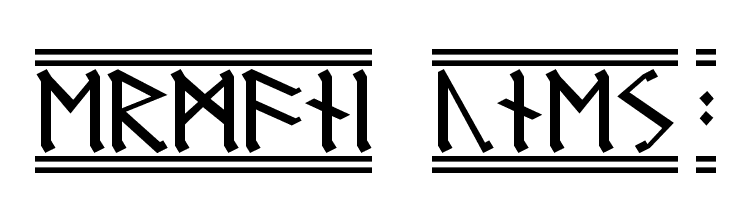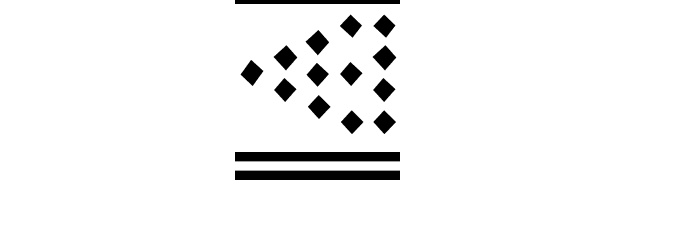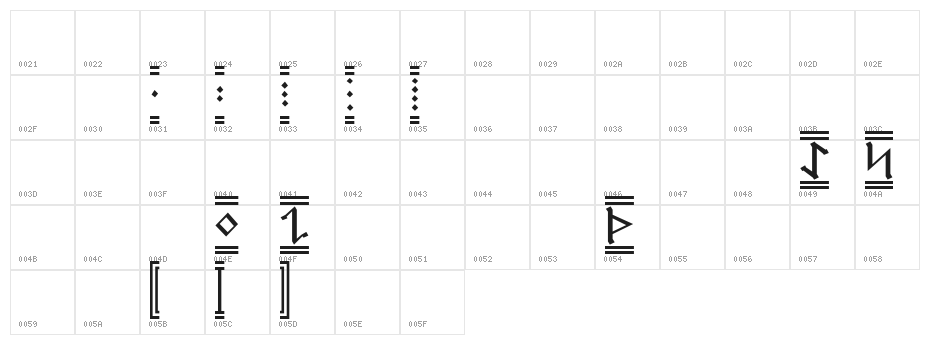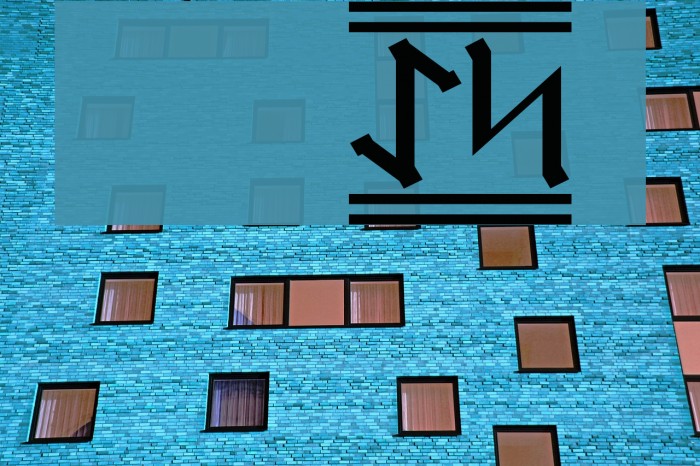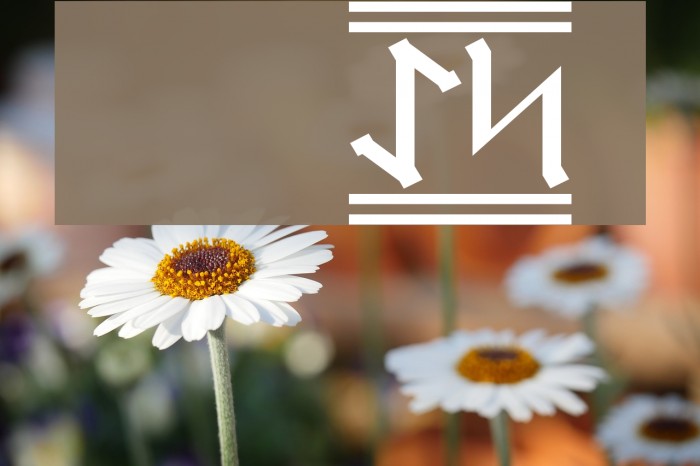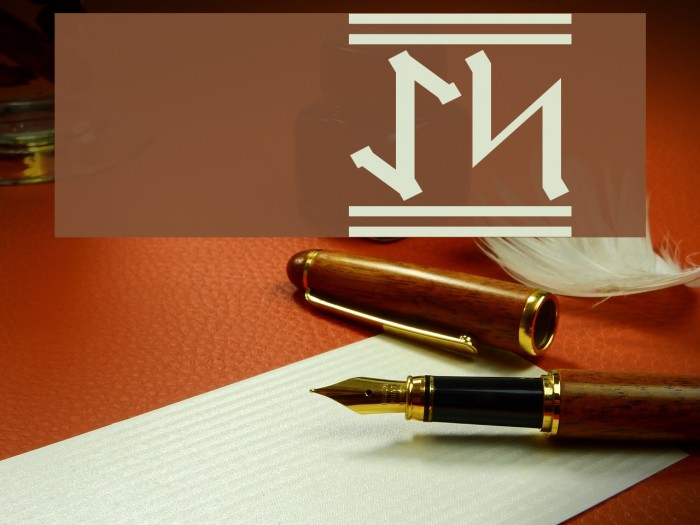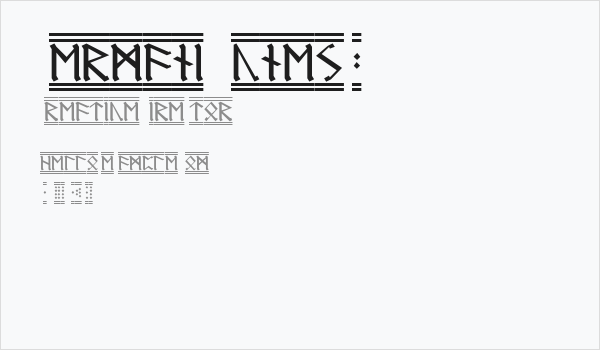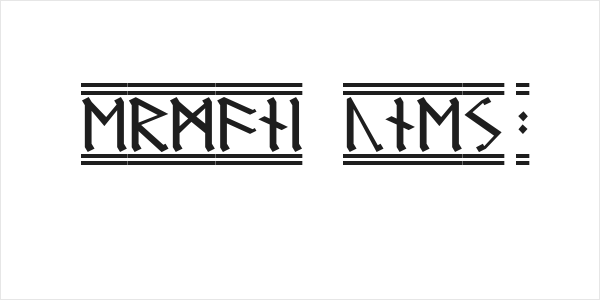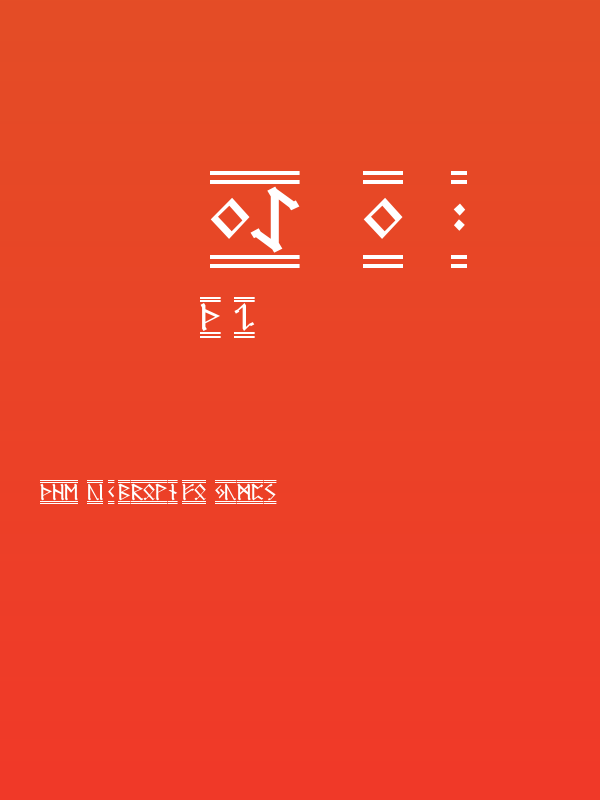
Germanic Runes 2 Font
Germanic Runes 2 Description
This font is inspired by ancient Germanic runes, featuring angular and geometric shapes that evoke a sense of historical mystique. The characters are formed with straight lines and sharp angles, reminiscent of traditional runic inscriptions. Each letter is distinct, with a bold presence that captures the essence of ancient script. The overall design is decorative, making it suitable for projects that aim to convey a sense of antiquity or cultural heritage. The font's unique style is ideal for creating an atmosphere of mystery and tradition.